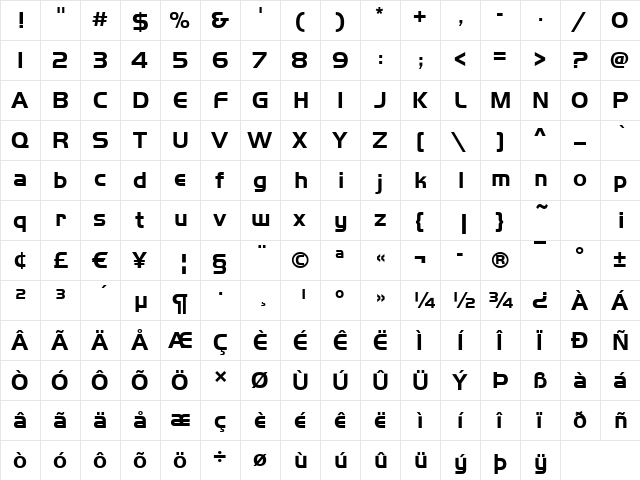
Huntington-Bold Regular
Design Context for Huntington-Bold Typeface
Huntington-Bold offers clean, dependable letterforms without strong stylistic allegiance, making it a practical choice for designers who need flexibility. Its bold stroke weight gives it real presence on the page.
Pro Tip: Use Huntington-Bold in both headline and body roles to test its range before committing to a single application.